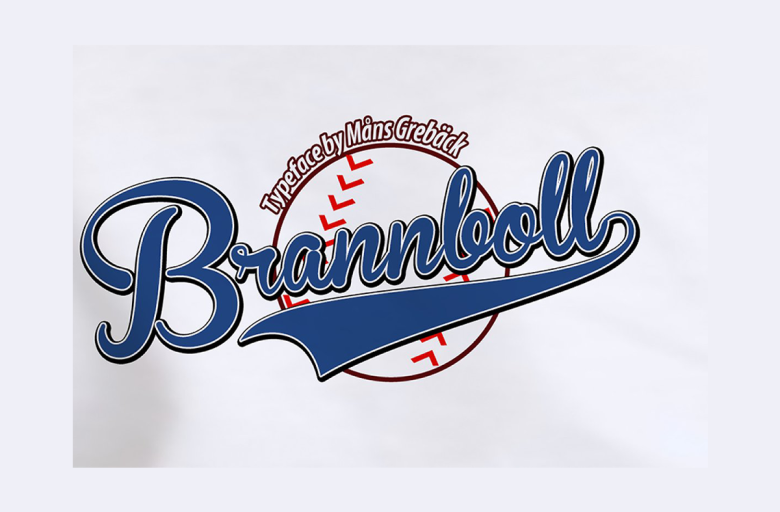
Brannboll Font
Baseball style script font, in fat and thin versions. Contains ten different swashes to get a custom look on the words you write. Includes numbers.
Brannboll Old school Font